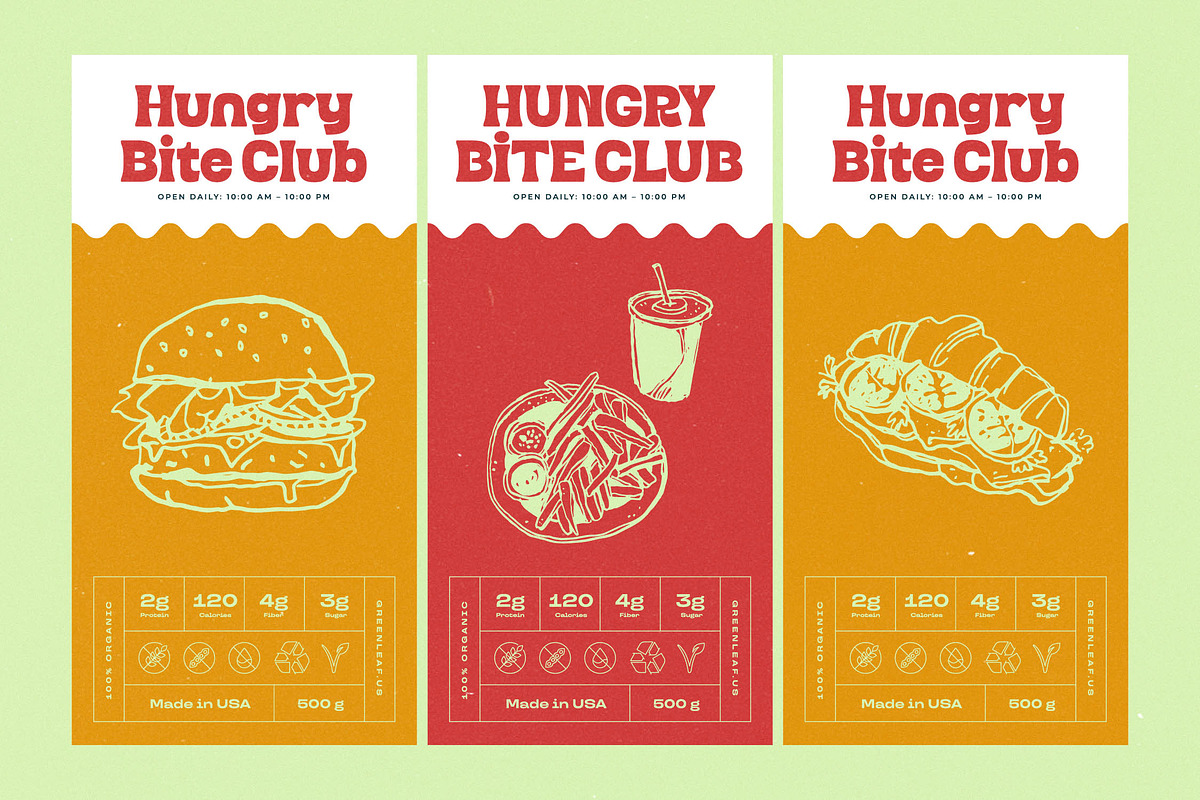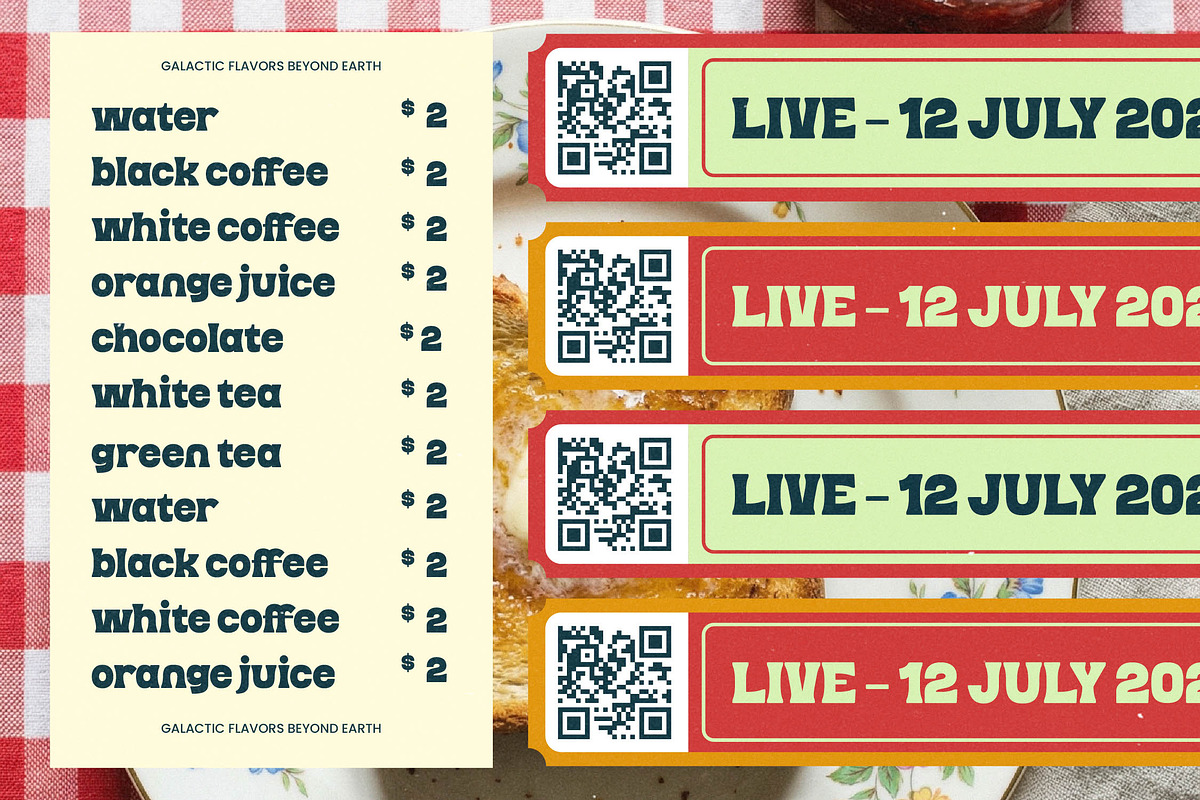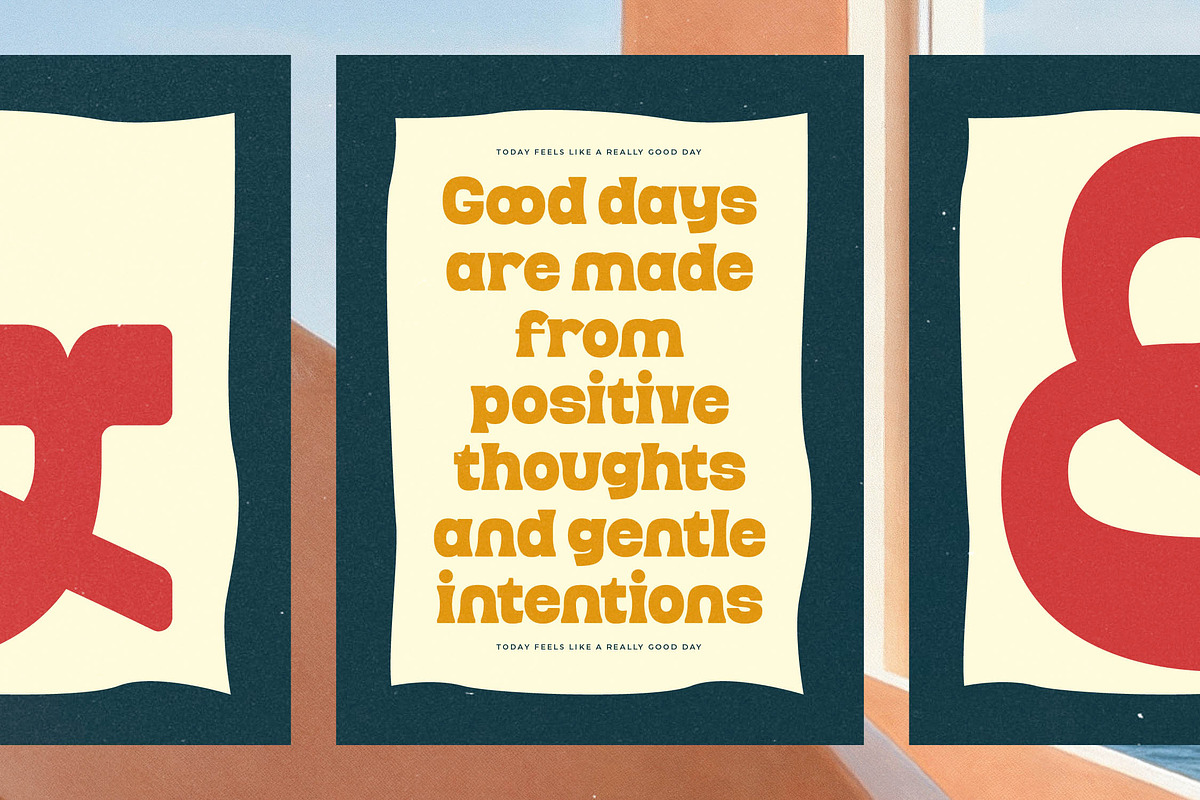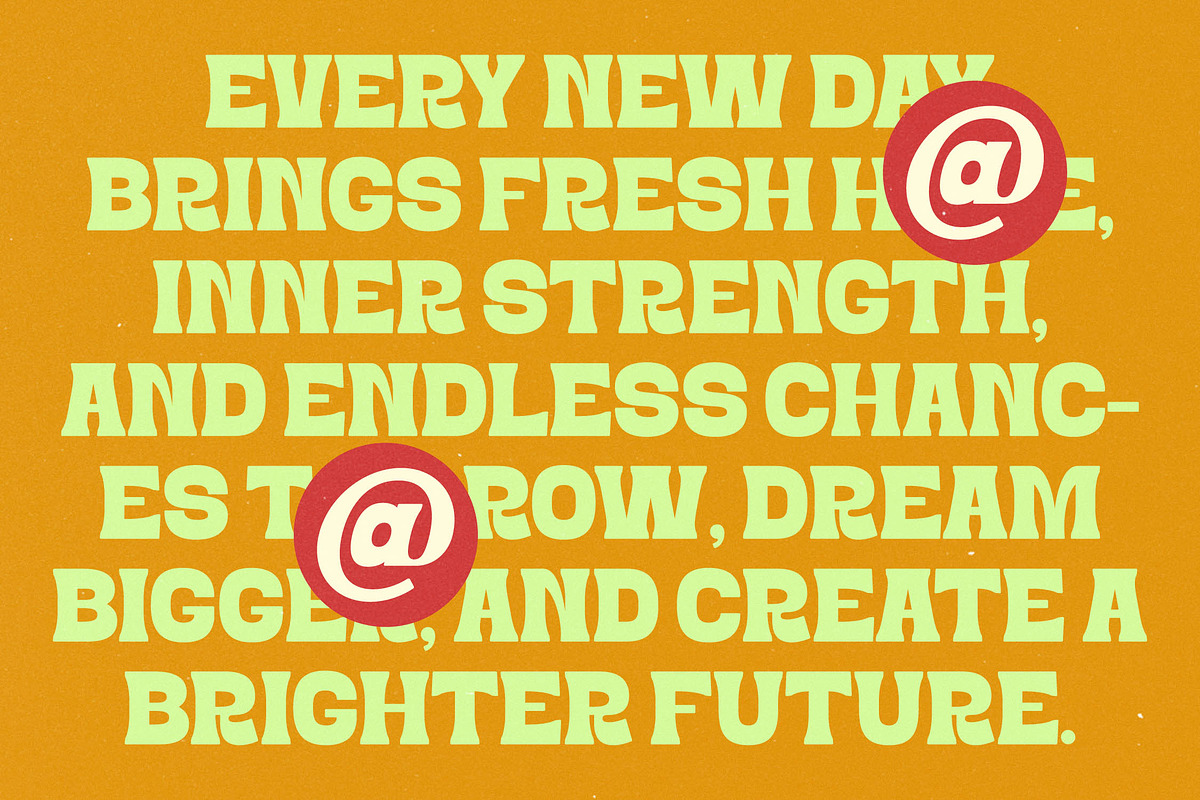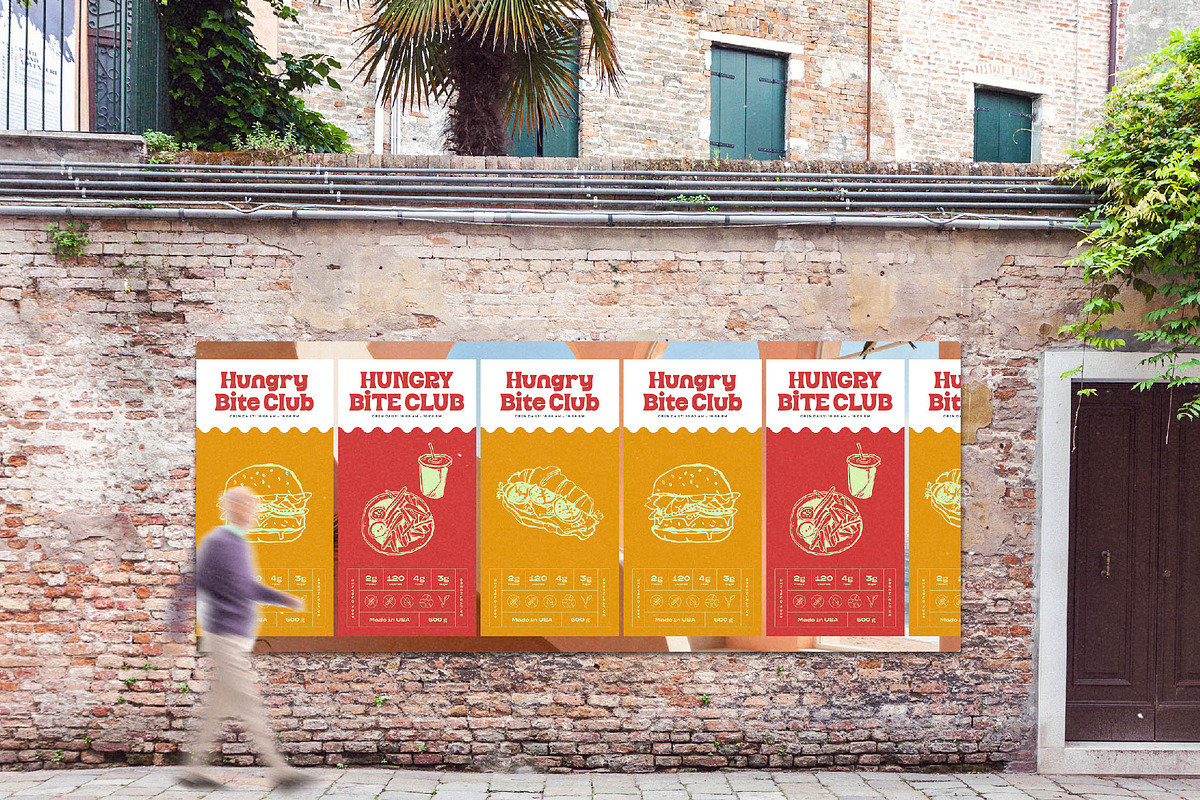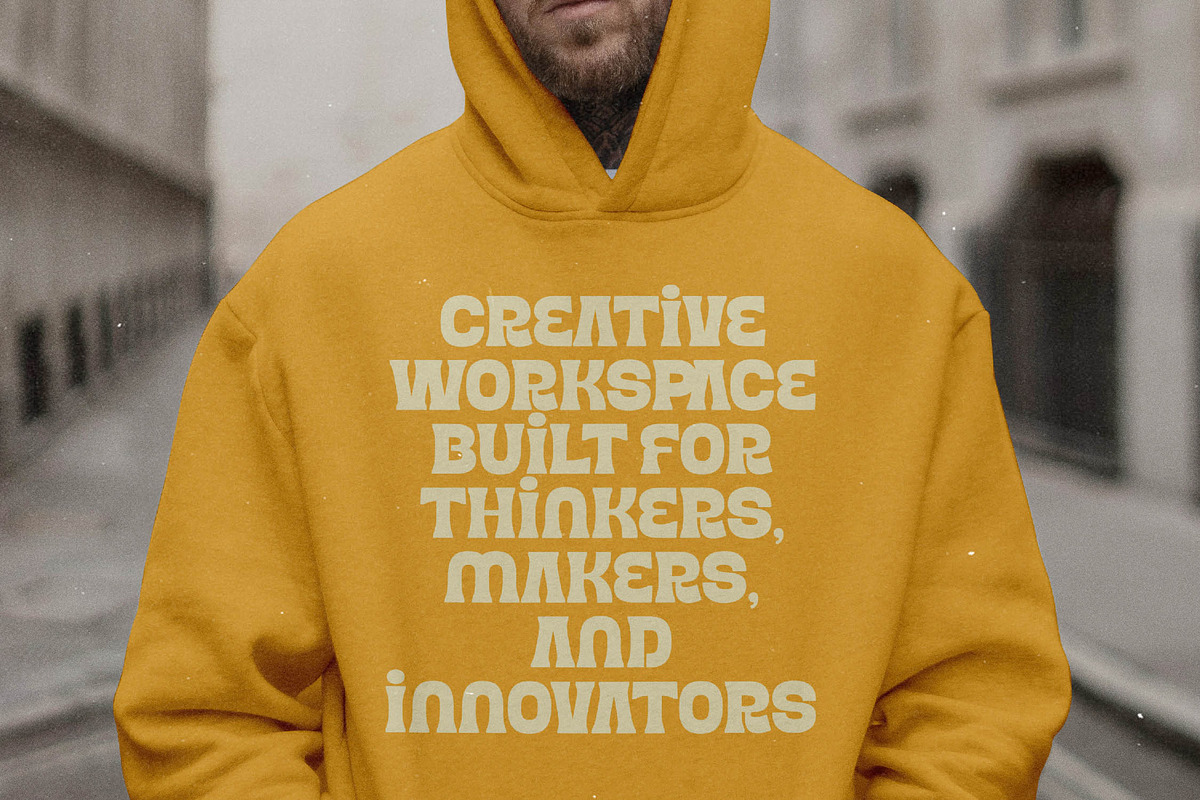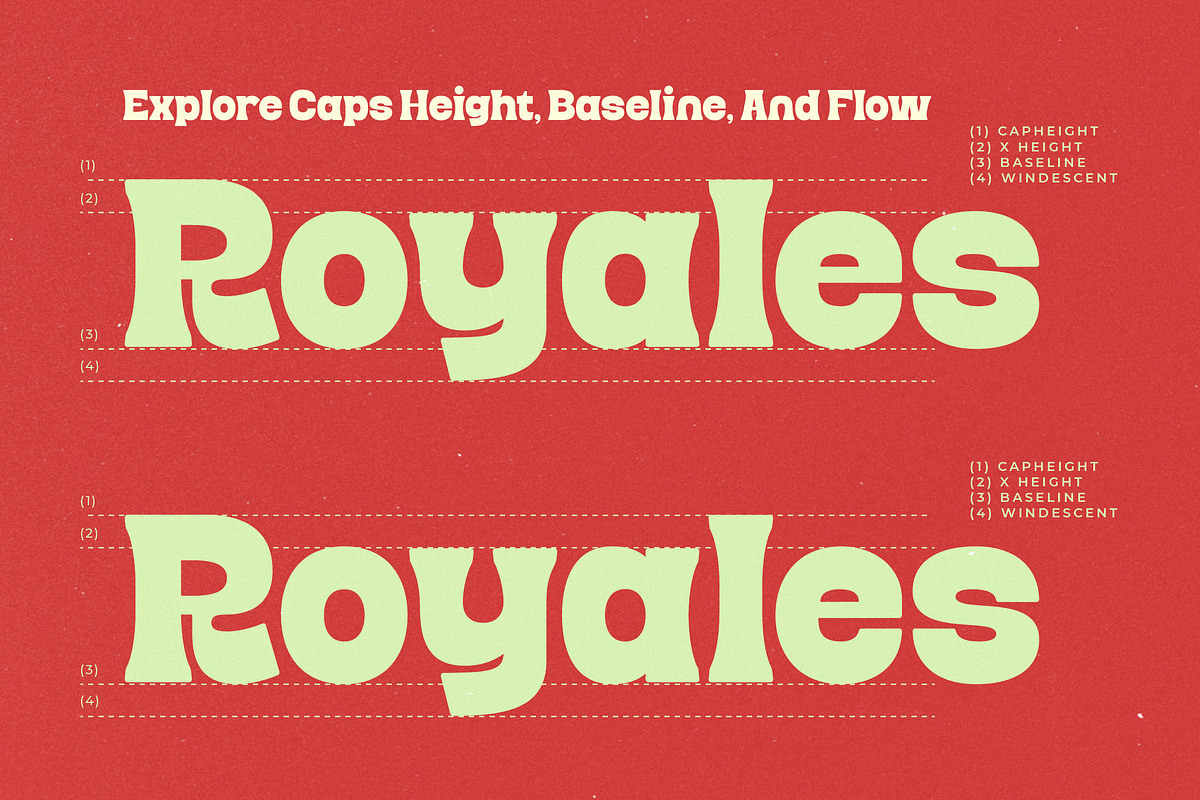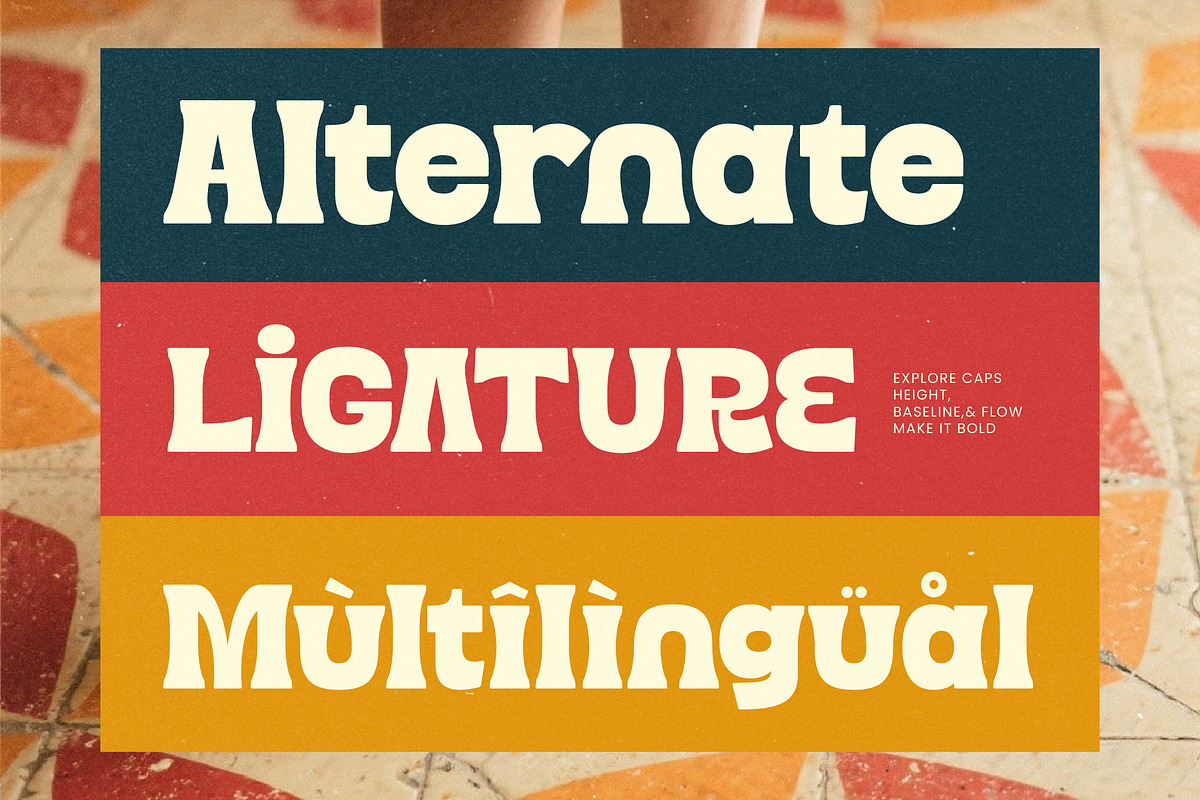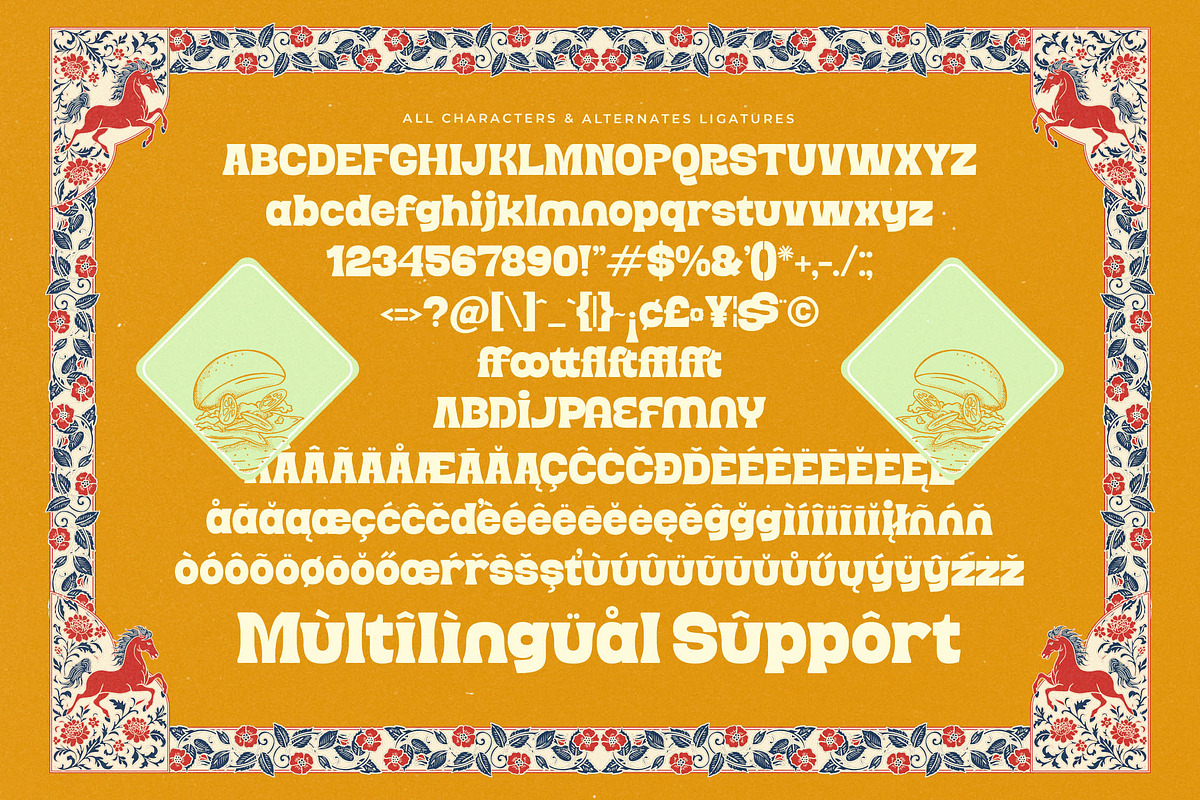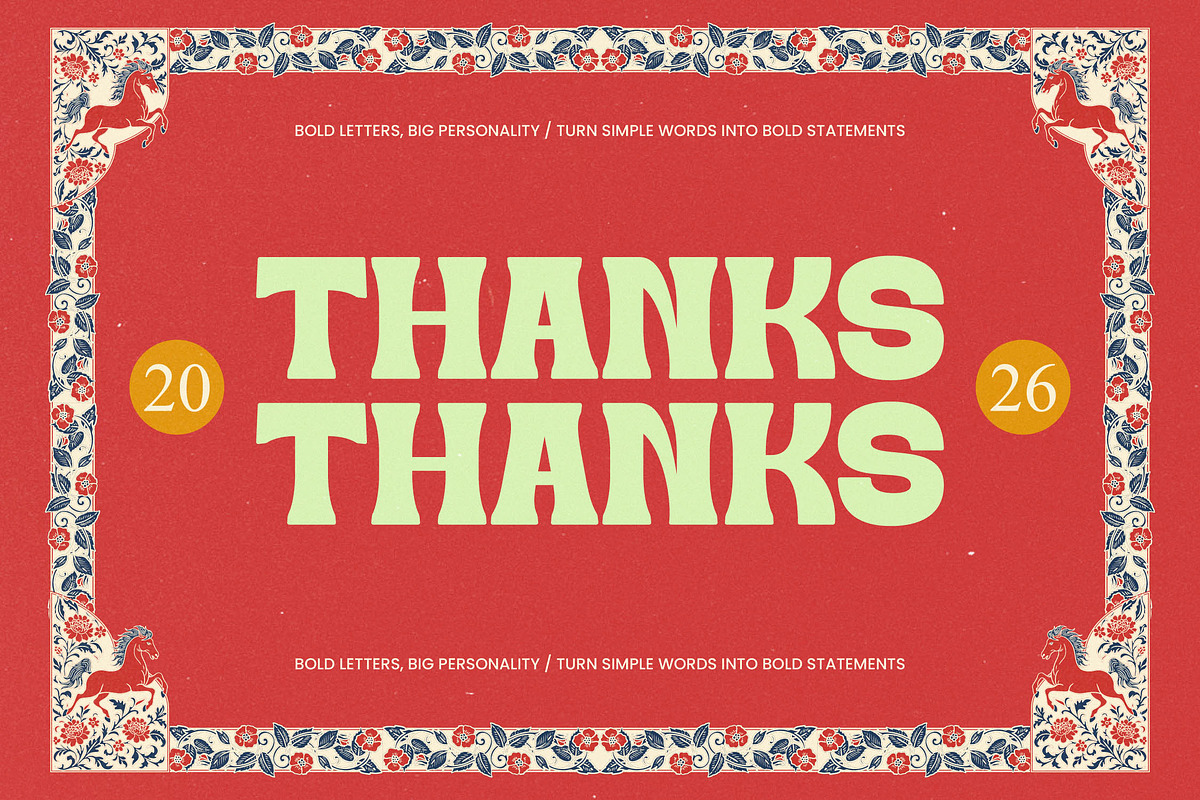
Master Riegaza Curvy Retro Serif
Master Riegaza is a bold, high-energy statement piece designed to command attention with its unique blend of vintage soul and contemporary flair. This typeface is more than just a font; it is an invitation to explore the limits of expressive design and nostalgic charm.
Drawing deep inspiration from the psychedelic curves of the 1970s and the structured elegance of classic display faces, the visual atmosphere is one of vibrant movement and undeniable confidence. It captures the essence of a bygone era while remaining perfectly tuned for today's visual landscape.
This modern serif display offers a luxury typography feel that doesn't shy away from being loud, making it an ideal choice for high-contrast serif layouts that demand a strong editorial font presence and maximum branding impact. Its thick stems and fluid terminals create a rhythm that is both rhythmic and visually arresting.
Aligned perfectly with the current modern serif trend, this typeface fulfills the need for editorial display fonts that prioritize character-driven typography. It taps into the revival of bold, curvy aesthetics that are currently dominating the world of high-end graphic design and digital media.
From striking logo design and comprehensive branding systems to experimental editorial layouts and vibrant packaging, this font is versatile enough to elevate any project. It is especially effective for wedding invitations seeking a retro twist or fashion lookbooks that require a touch of avant-garde elegance.
The technical excellence of this pack shines through its inclusive set of ligatures and alternates that allow for custom typographic flourishes. With full multilingual support and a wide array of international characters, it ensures your message resonates across global markets without losing its distinct personality.